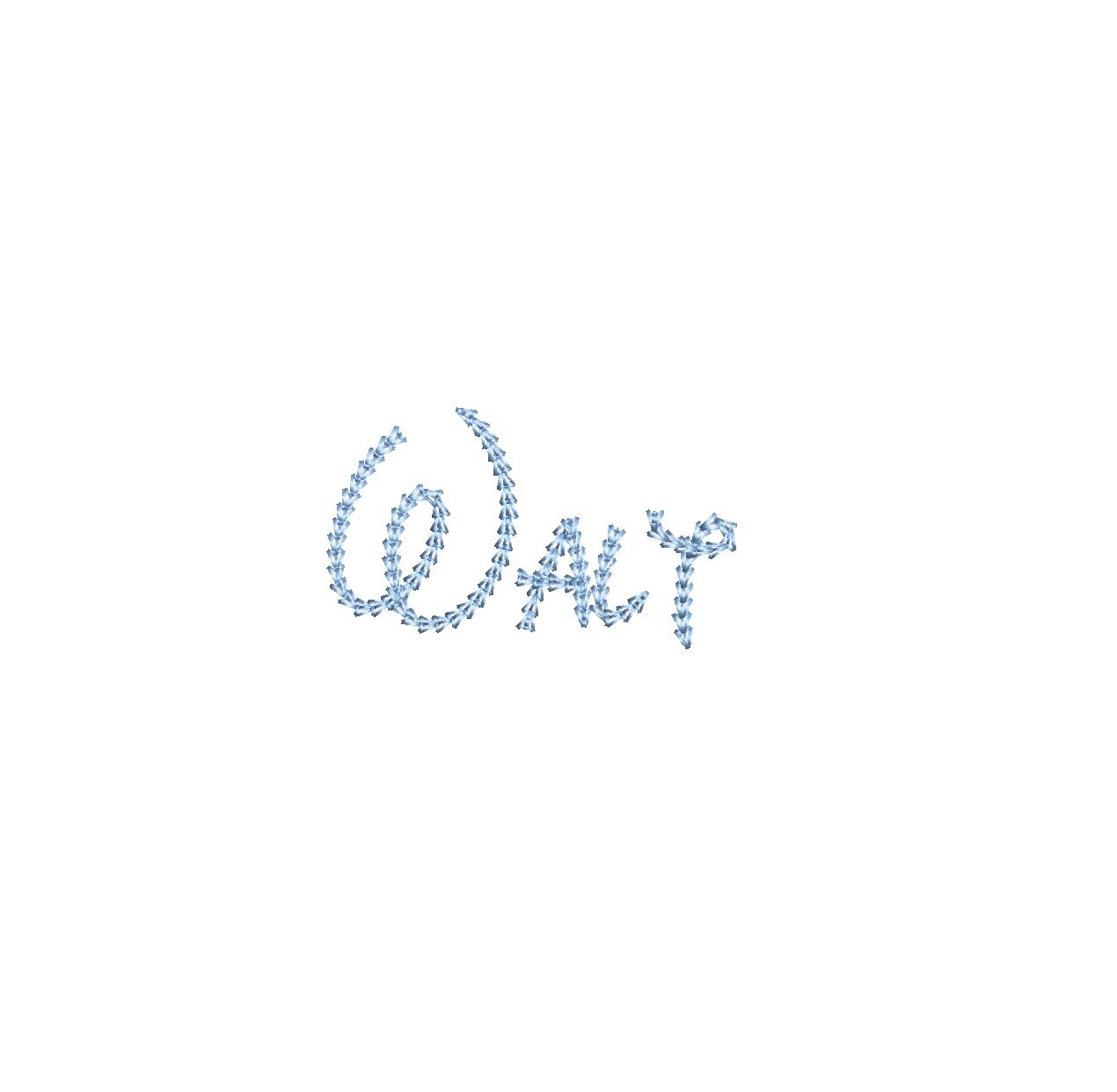
Elevate your embroidery projects with the elegant Walt Chain Stitch ESA font. Seamlessly compatible with Wilcom Studio e4.5.6 and Hatch 3 versions and above, this font adds a touch of classic charm to your designs. Craft charming monograms, labels, and embellishments effortlessly. Seamlessly integrate the font to unlock a world of creative possibilities. Download Walt Chain Stitch ESA font now to infuse your embroidery with timeless sophistication. Elevate your projects with this exceptional font, transforming each piece into a masterpiece of refined artistry. Add a touch of classic elegance to your creations with this versatile addition to your toolkit.